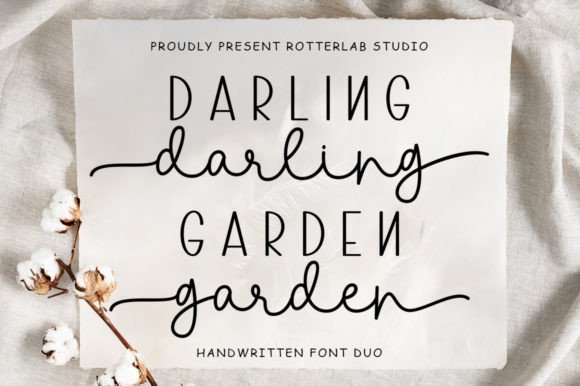
Introducing Darling Garden Font, the ultimate choice for those seeking the best font for holiday cards. Created by rotterlabstudio, this script font family is a masterpiece that exudes elegance, sophistication, and a touch of romance. With its stylish and flowing strokes, Darling Garden adds a whimsical and charming touch to any design project.
Whether you're crafting wedding invitations, love letters, or other romantic-themed designs, Darling Garden Font is the perfect companion. Its intricate details and captivating beauty will instantly captivate your audience, leaving a lasting impression.
But what sets Darling Garden Font apart from the rest? This font is PUA encoded, which means that you have easy access to all its delightful glyphs and swashes. Unlock a world of creativity and effortlessly enhance your creations with the stunning variety of characters and decorative elements.
With Darling Garden Font, your holiday cards will transcend the ordinary and become extraordinary. Embrace the power of this font to evoke emotions and create a truly unforgettable experience for your recipients. Let the magic of Darling Garden Font enchant your projects and transport your audience to a world of beauty and love.